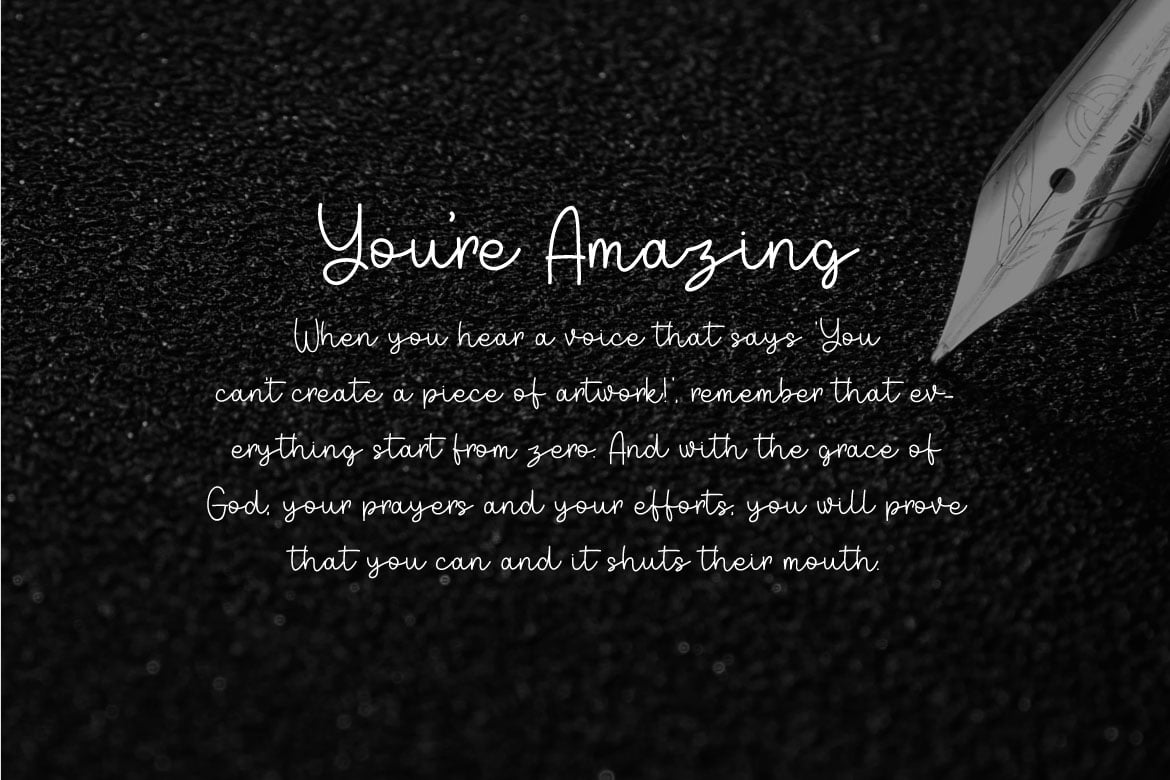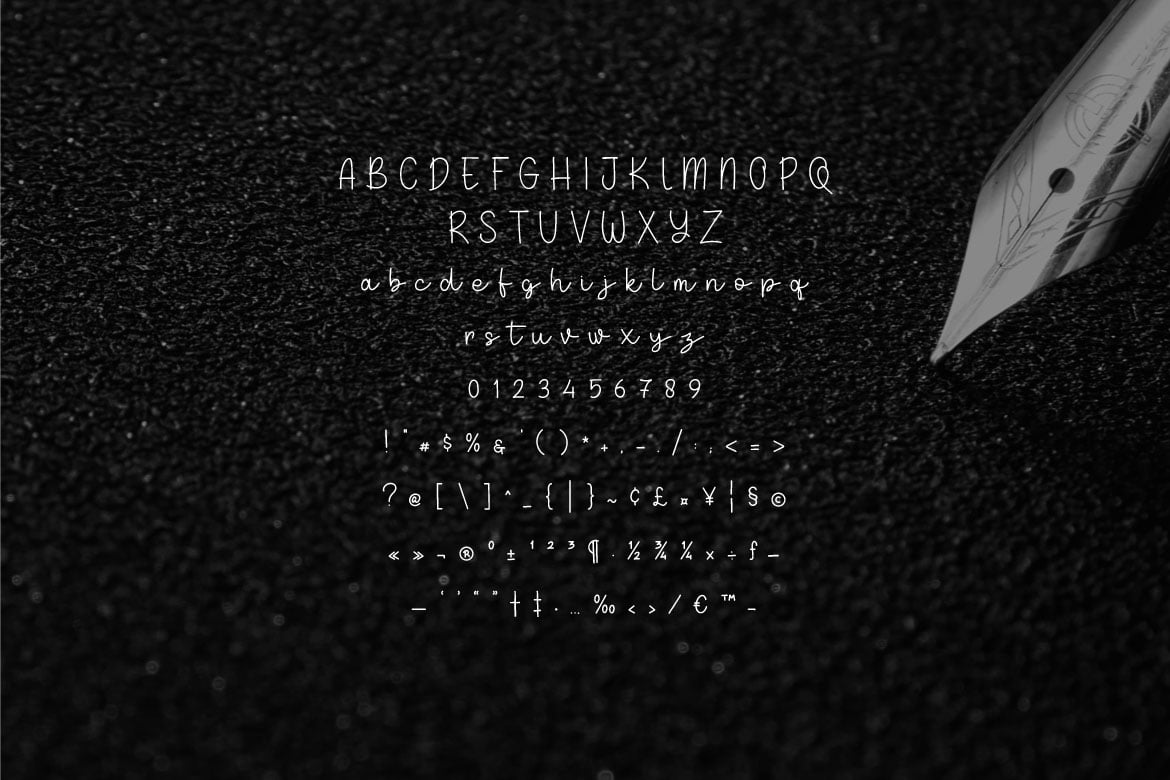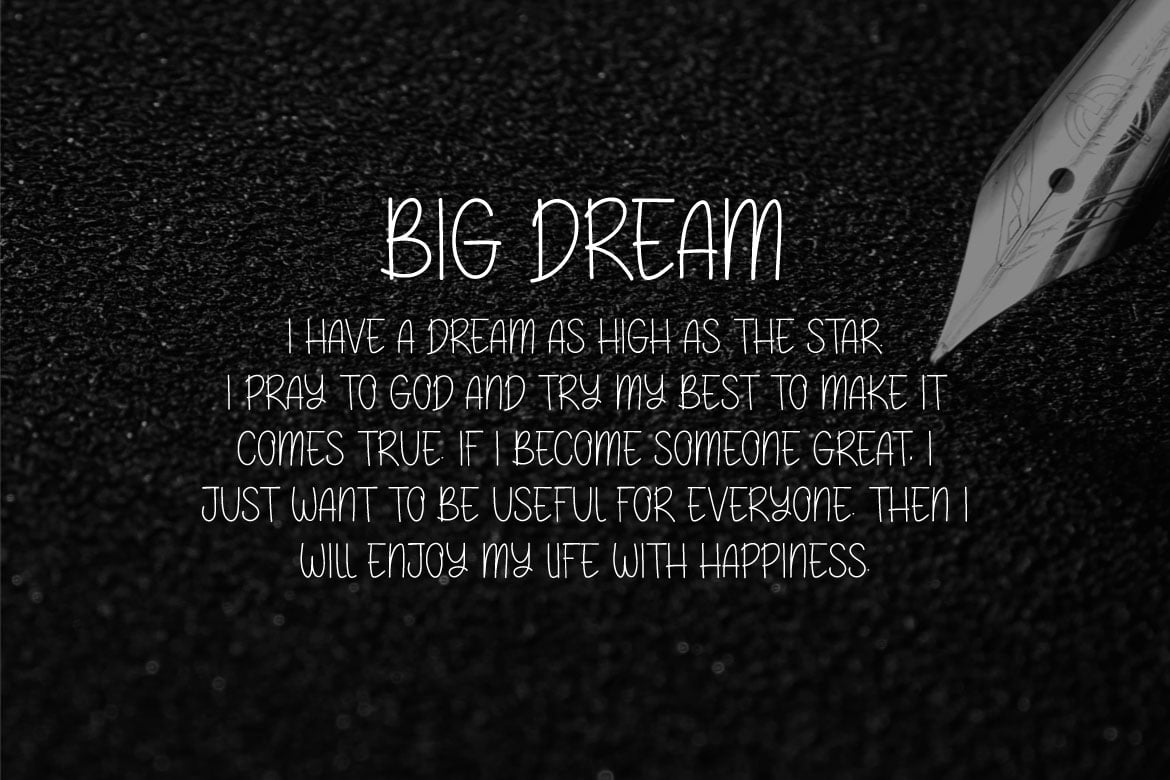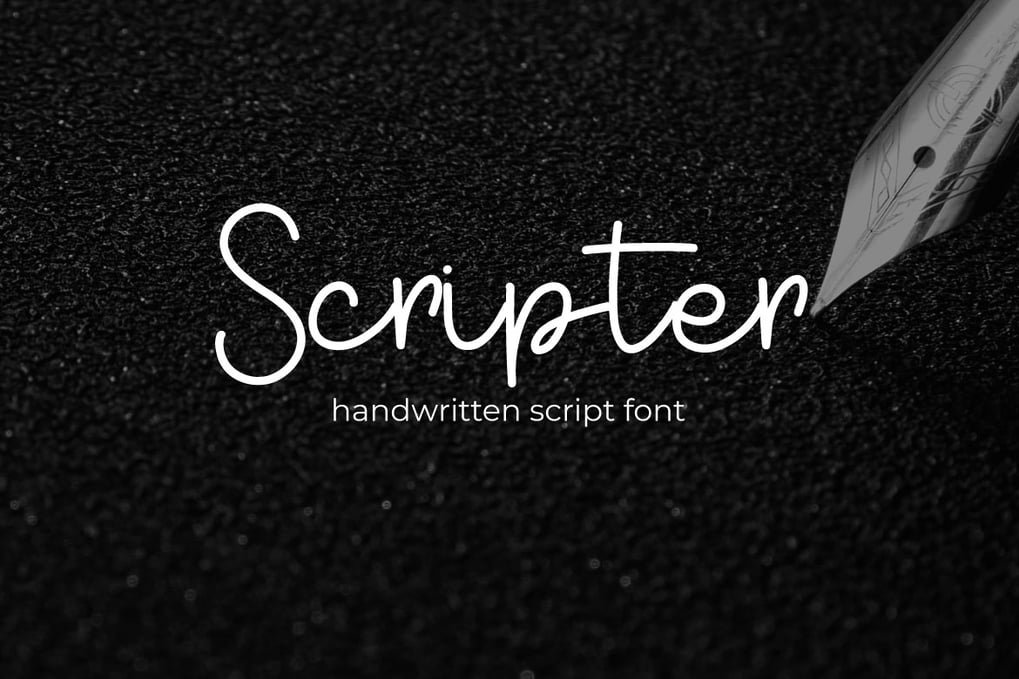
Scripter – Monoline Script Font
Introducing our exquisite Scripter – Monoline Script Font, meticulously crafted to bring a touch of elegance and authenticity to your design projects. This font captures the essence of natural handwriting with its fluid strokes and graceful curves, making it an ideal choice for a wide range of creative applications. Scripter – Monoline Script Font stands out for its elegance and authenticity, making it a perfect addition to your font library. Whether you’re creating sophisticated wedding stationery or crafting an eye-catching social media graphic, this font will elevate your design with its unique charm and personality.